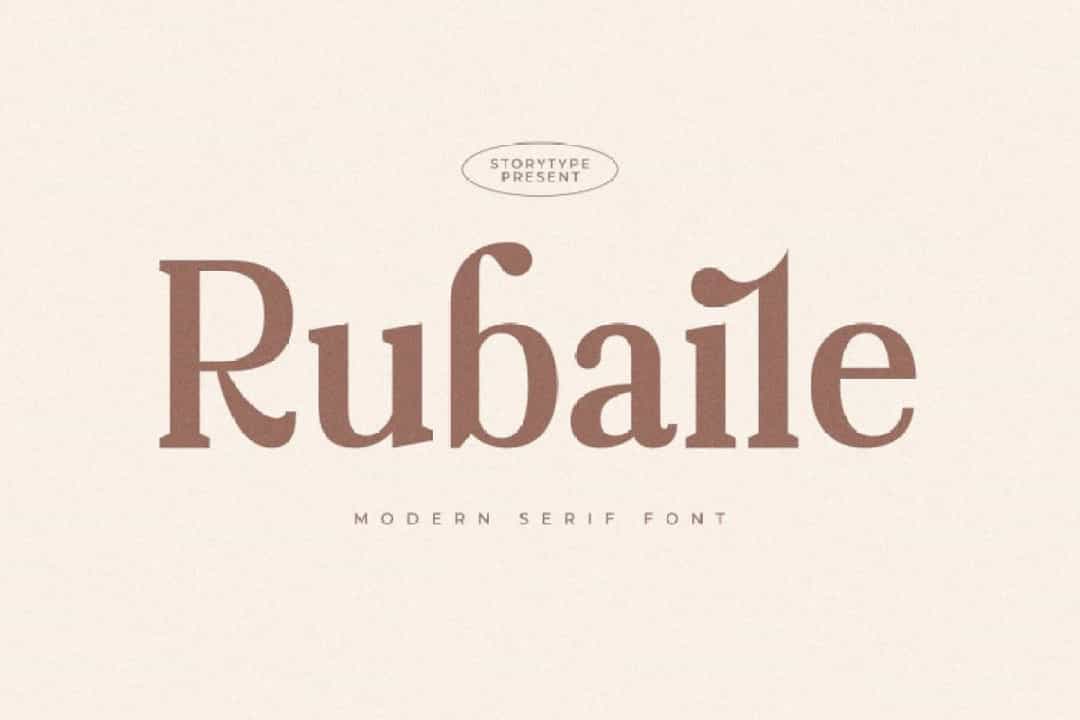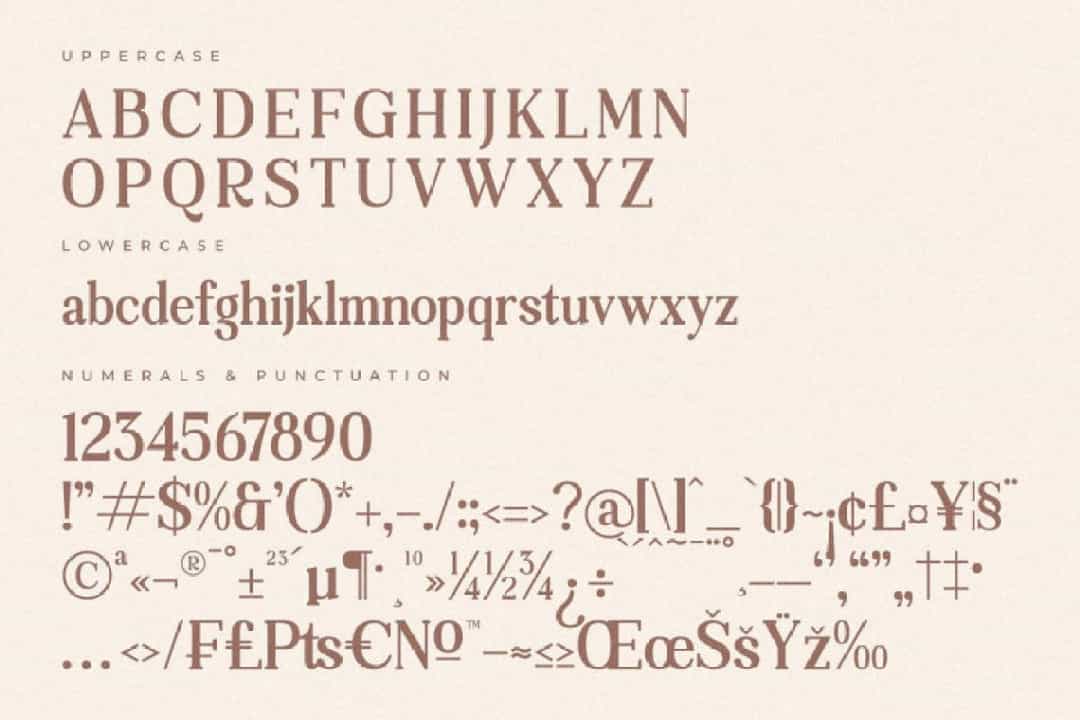
Rubaile is an exquisite serif font designed to be both sophisticated and comfortable – ideal for creating unique, striking designs. With its modern yet classic aesthetics, Rubaile provides the ideal font choice to craft stunning and beautiful artworks.